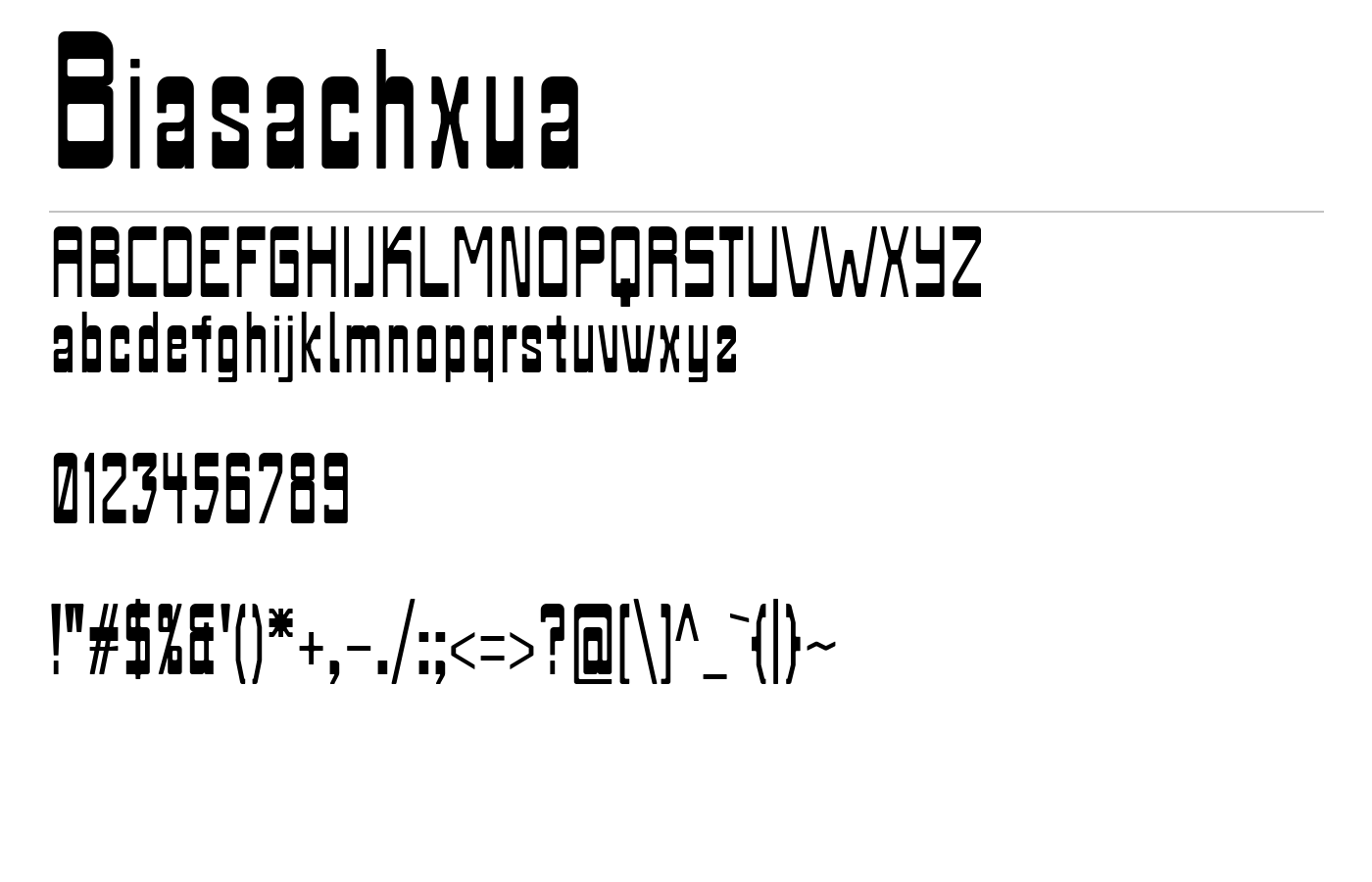
Biasachxua is a bold, condensed sans-serif font with a modern, industrial vibe. Its tall, narrow letterforms and high contrast between thick and thin strokes give it a striking and edgy look, making it ideal for impactful headlines, logos, and contemporary branding. This font suits projects that want to convey strength and uniqueness with a stylish, futuristic feel.
Biasachxua Font
About Biasachxua Font
| Designer | Hiep Tong |